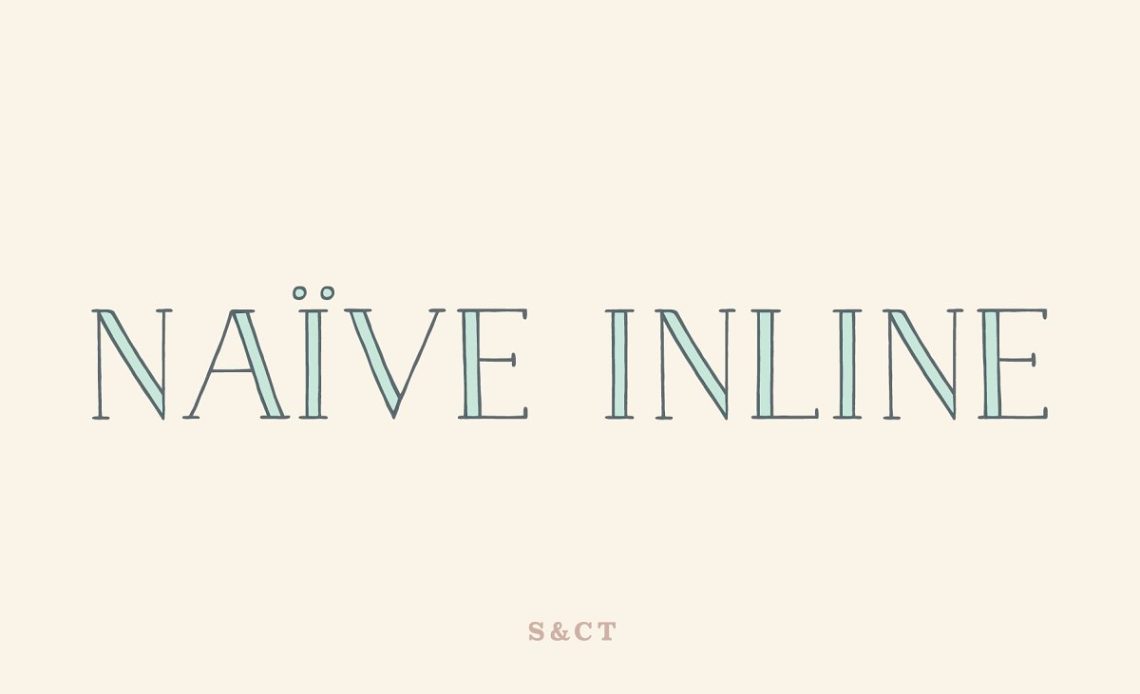
Looking for a font that's both playful and elegant? Look no further than the Naive Inline Font Collection! This serif font family, created by S&C Type, is perfect for those looking to add a whimsical touch to their designs.
Designed by Fanny Coulez and Julien Saurin in Paris, the Naïve Inline font features finely irregular lines that give off a distinctly human feeling. The font pack includes 11 fonts in a range of weights and interior patterns, so you can mix and match to create truly unique designs.
Whether you're designing invitations, envelopes, or any other type of project, the Naive Inline Font Collection is sure to elevate your work to the next level. And with three weights to choose from, you can rest assured that your designs will be easy to read no matter what size you choose.
Superimpose the layers with a compatible software like Photoshop, and choose your desired colors to bring your designs to life. And if you're looking for even more options, check out our Naïve superfamily, which contains a variety of other variations including Line, Inline, Serif, Sans Serif, and a special Art Deco font.